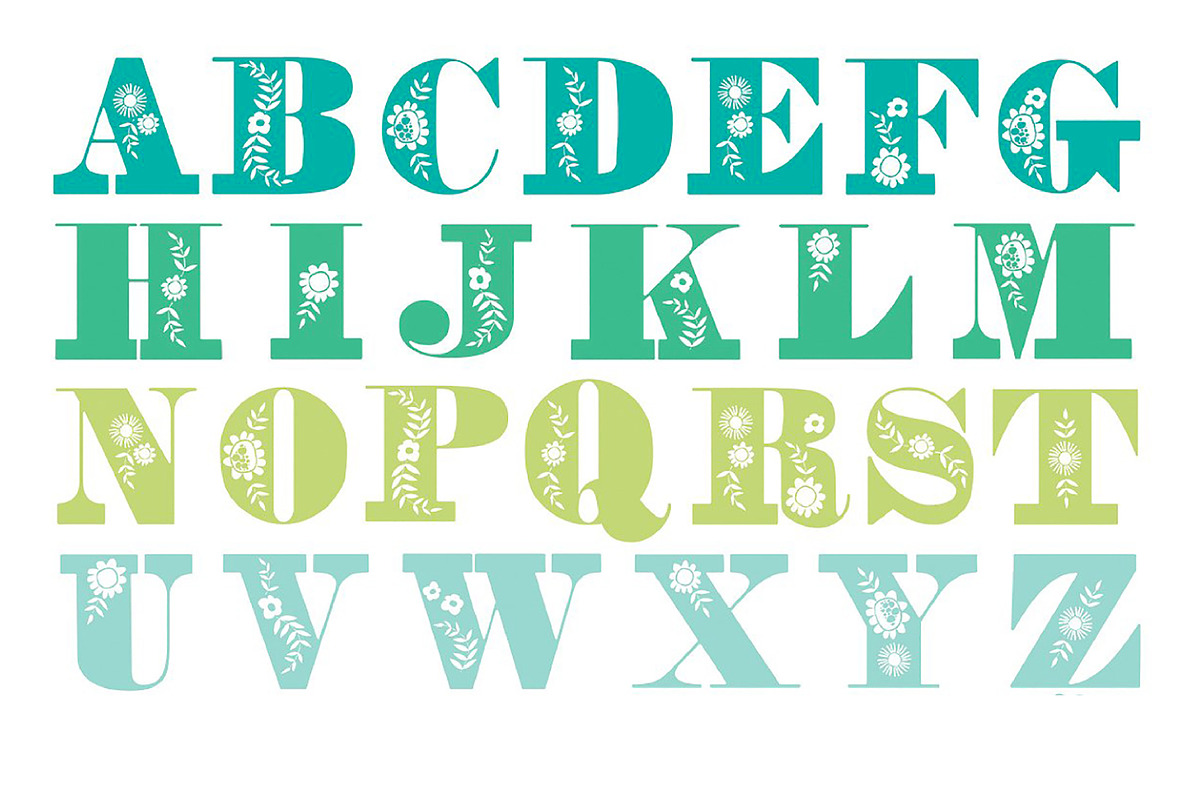
Anna Mea Floral Uppercase Font
Anna Mea Floral Uppercase Font by shawnanonna is a font selected for branding, posters, packaging, typography.
Why Anna Mea Floral Uppercase Font is worth a look
Anna Mea Floral Uppercase Font by shawnanonna fits naturally into Branding, posters, packaging, typography.